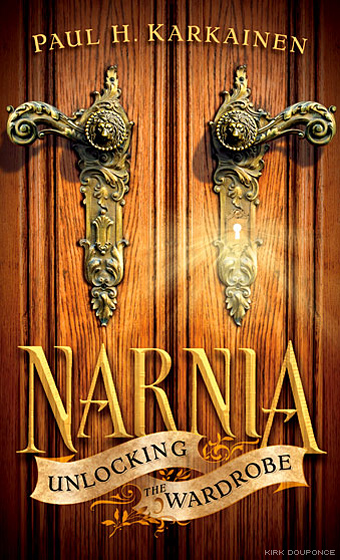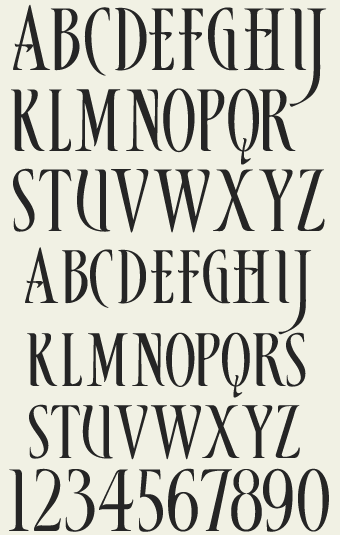
LHF Brien
by
Gary Godby
inspired from the Clive Barker "Imajica" book cover. Includes full punctuation, numbers and accents.
THE ORIGINAL DESIGN BY ISKRA JOHNSON